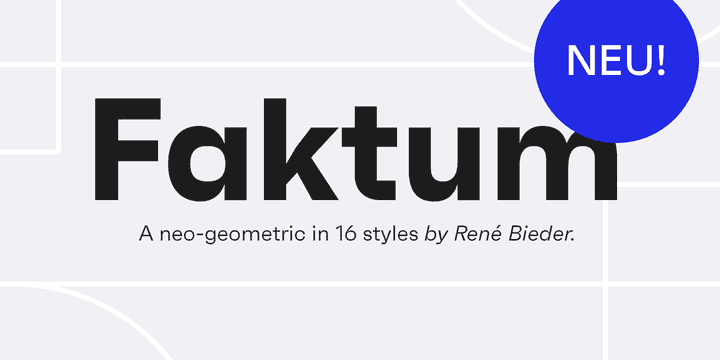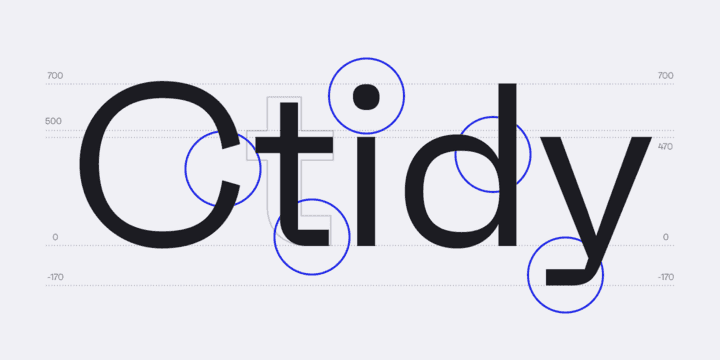
Faktum Font Family
Faktum Sans Font is a modern sans font family designed by Faktum Labs that takes its influence from mid-century modern interior design and architecture, particularly the way it uses clean lines and open space.